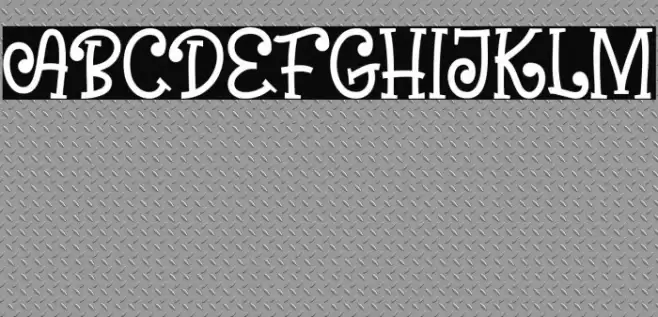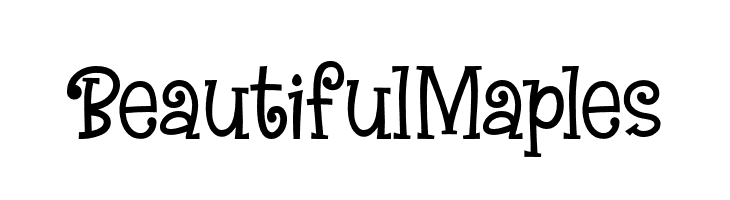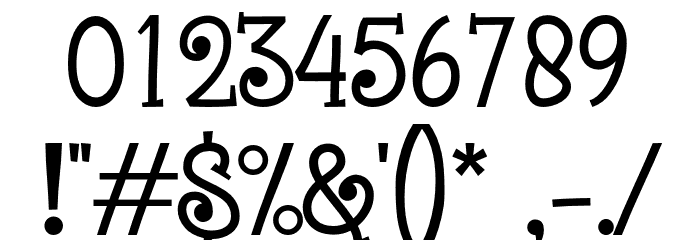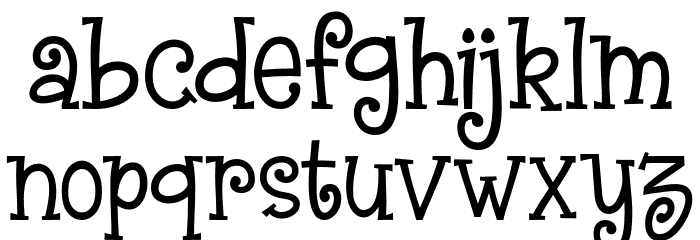
BeautifulMaples Font
BeautifulMaples Description
This font features a whimsical and playful design, characterized by its curly and decorative elements. Each letter has a unique flair, with exaggerated curves and loops that give it a lively and dynamic appearance. The uppercase letters are bold and eye-catching, while the lowercase letters maintain a consistent style with slightly less embellishment. The numbers and special characters follow the same playful theme, making the font versatile for various creative projects. Its distinct style is perfect for adding a touch of fun and personality to any design.
A whimsical, curly font with playful and decorative elements from Curly fonts.
- Proposed Projects: Ideal for children's books, party invitations, playful branding, and creative posters.
- Overall Style: Playful, Whimsical